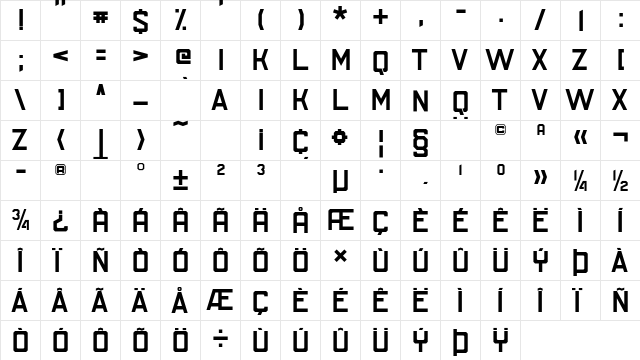
SU-30SM 810
| Foundry | Adam Rucki |
| Designer | Adam Rucki |
Design Context for SU-30SM Typeface
SU-30SM offers clean, dependable letterforms without strong stylistic allegiance, making it a practical choice for designers who need flexibility.